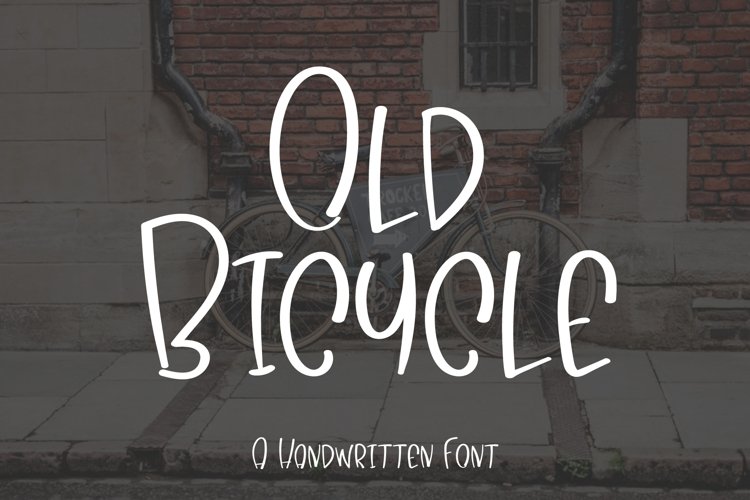
Old Bicycle is a cool, stylish handwritten font. Due to its versatility, it will elevate a wide range of design projects to the highest level, be it branding, headings, wedding designs, invitations, signatures, logos, labels, and much more! The only limit is your imagination!